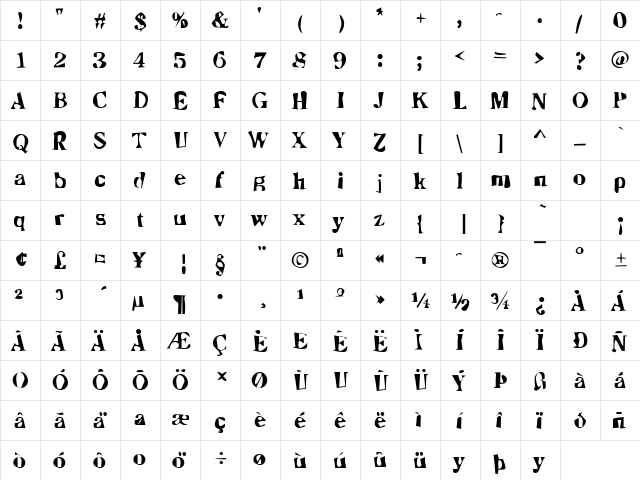
Dirty09 Becker Regular
Design Context for Dirty09 Becker Typeface
Dirty09 Becker is a composed and adaptable typeface that performs quietly and consistently across a wide range of design contexts.
Pro Tip: Use Dirty09 Becker in both headline and body roles to test its range before committing to a single application.